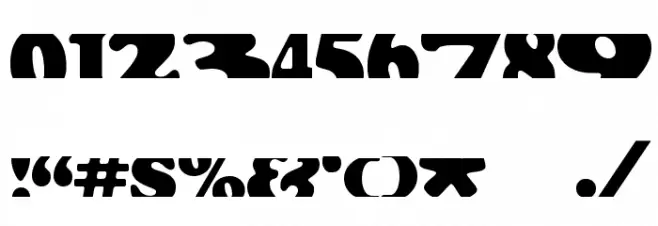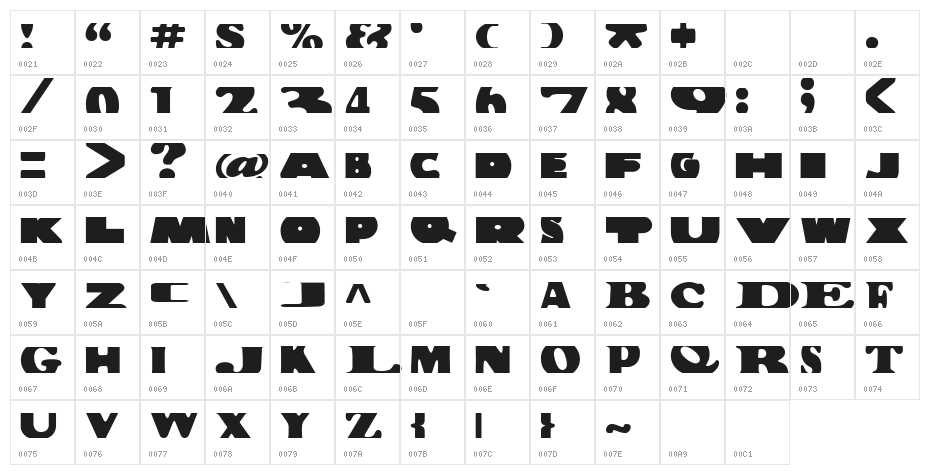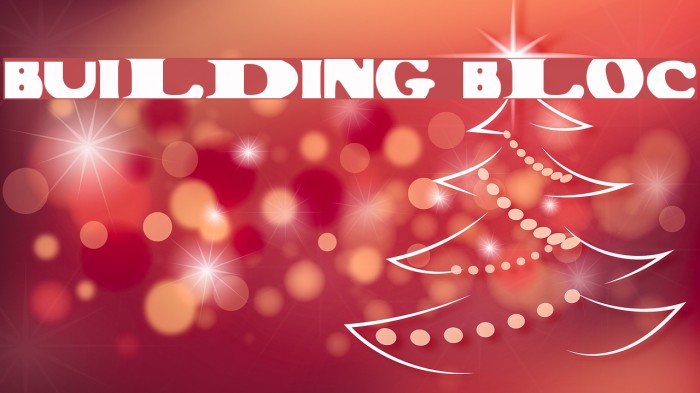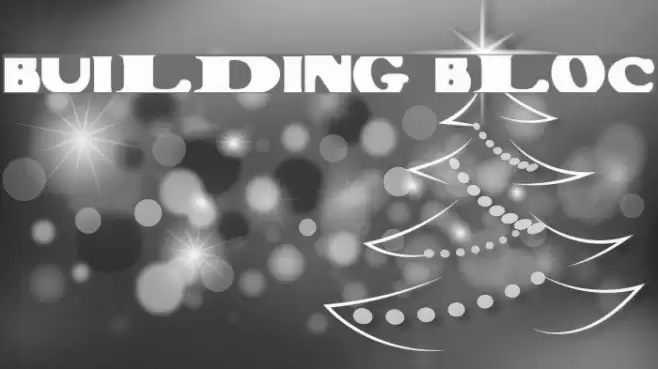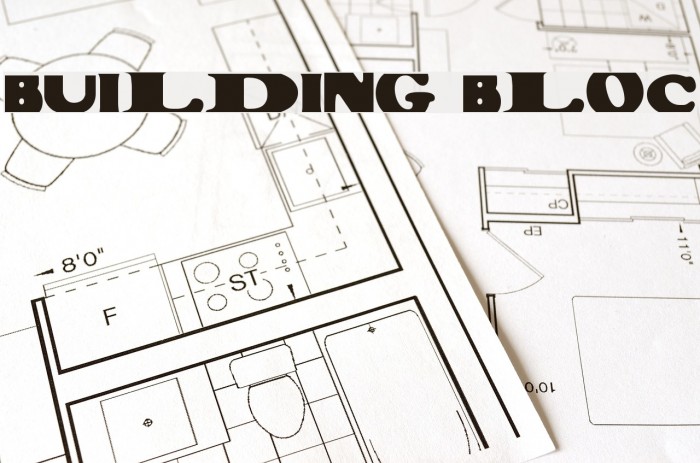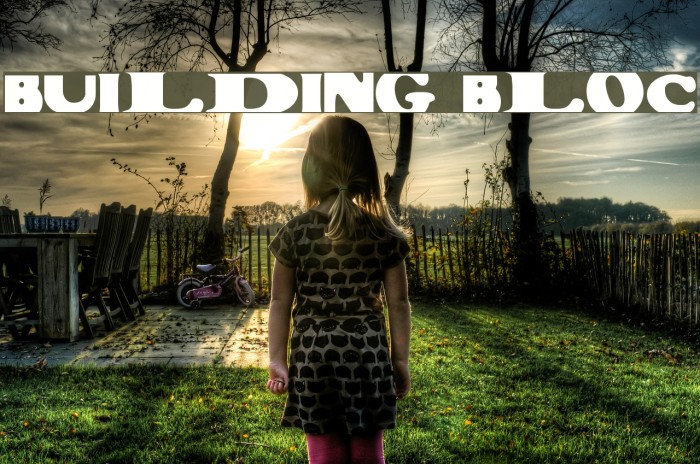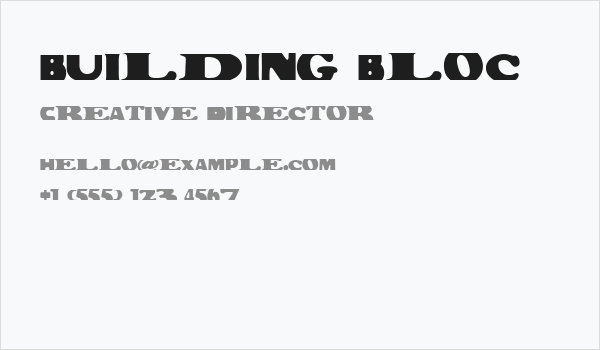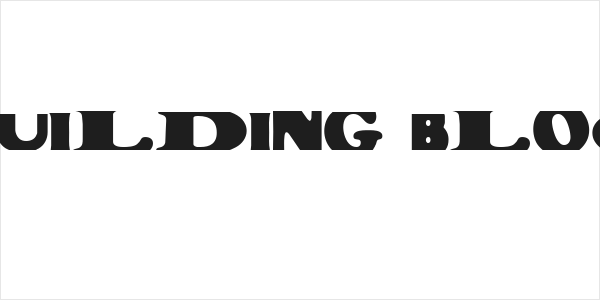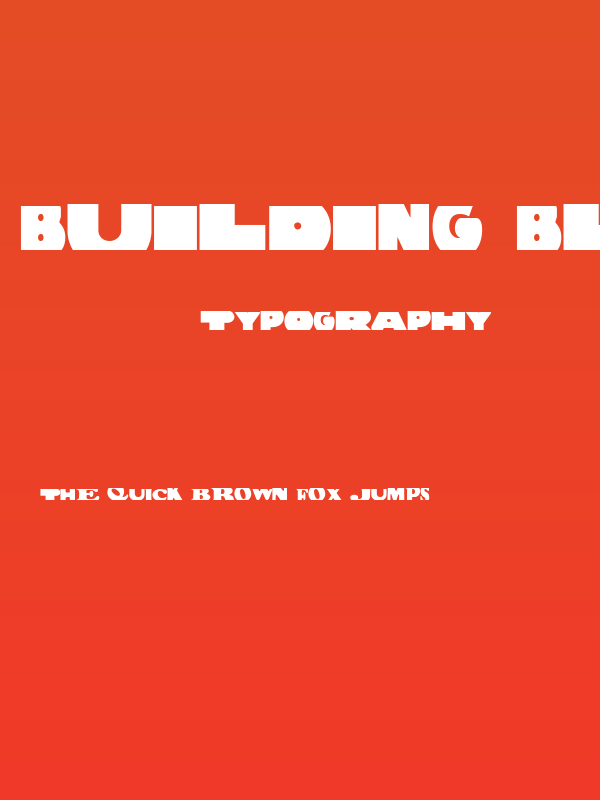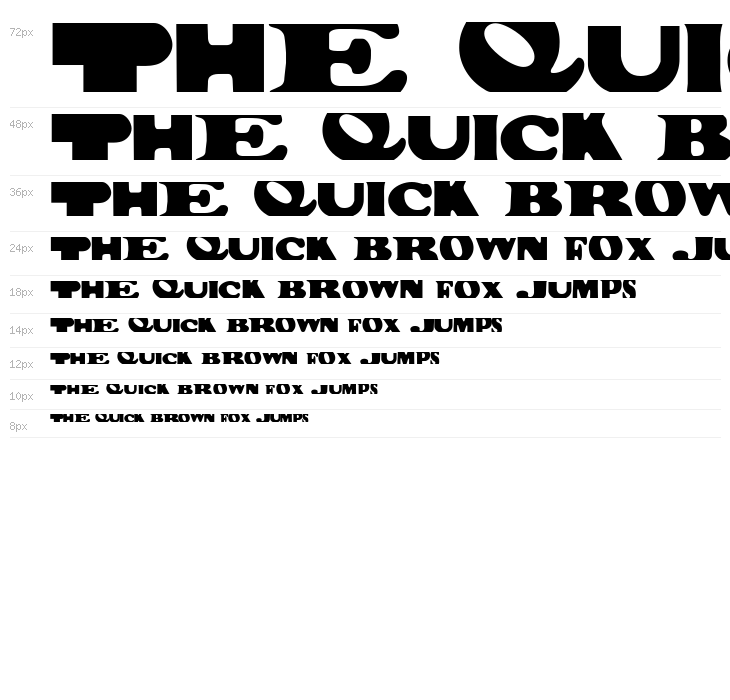
Building Bloc Font
Building Bloc Description
This bold and striking font features a unique, blocky design with high contrast between thick and thin strokes. The characters are heavily stylized, with angular cuts and geometric shapes that create a sense of movement and energy. The uppercase letters are particularly bold, while the lowercase letters maintain the same distinctive style. Numbers and special characters are designed to match the overall aesthetic, making this font ideal for attention-grabbing headlines and titles. Its bold presence and unique style make it suitable for creative projects that require a strong visual impact.